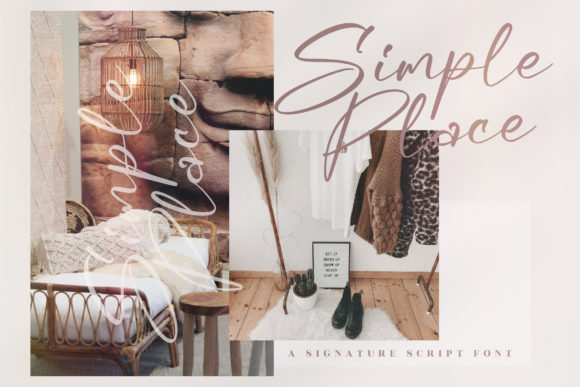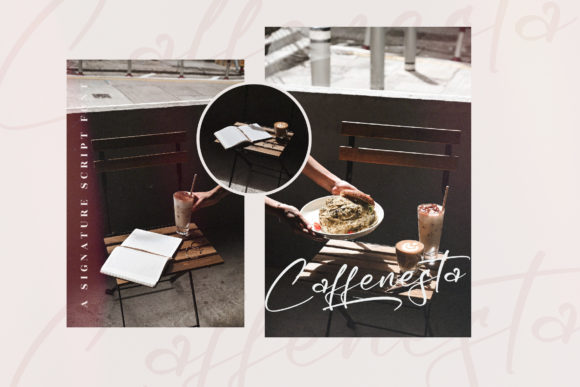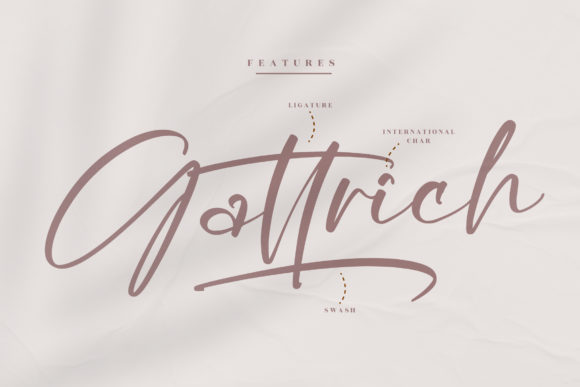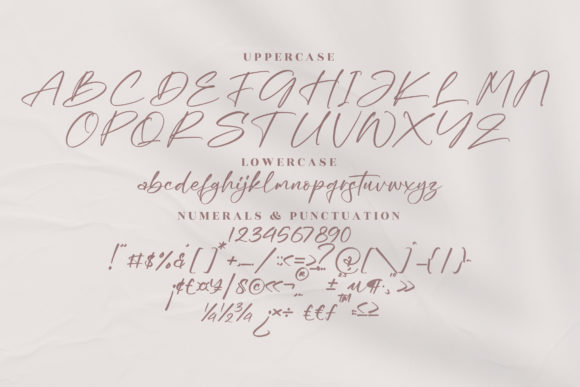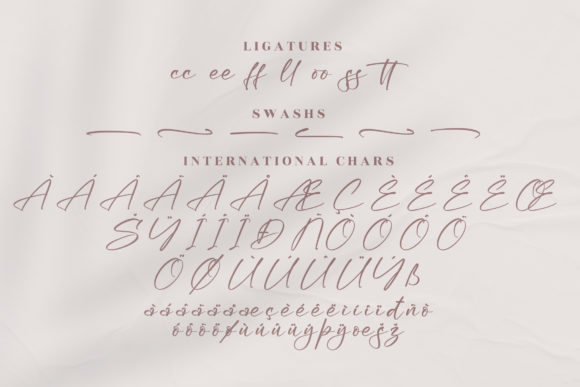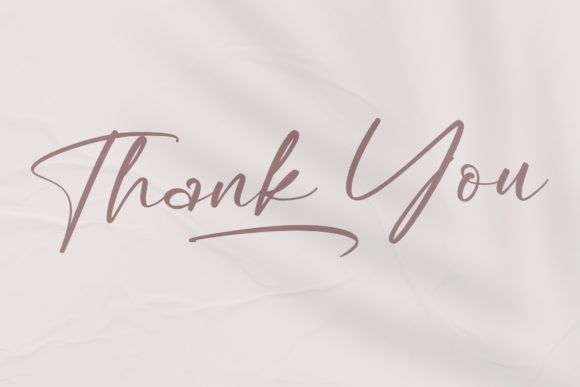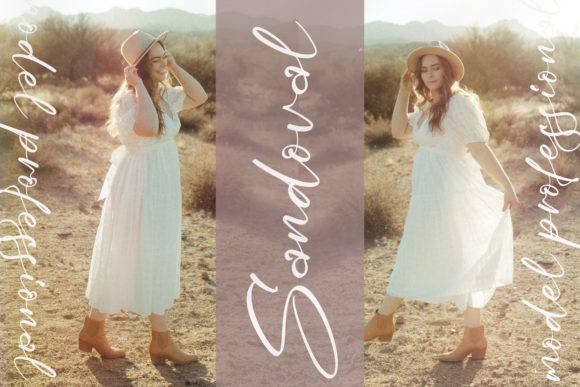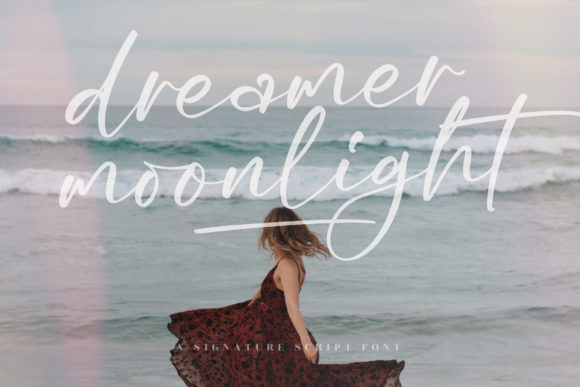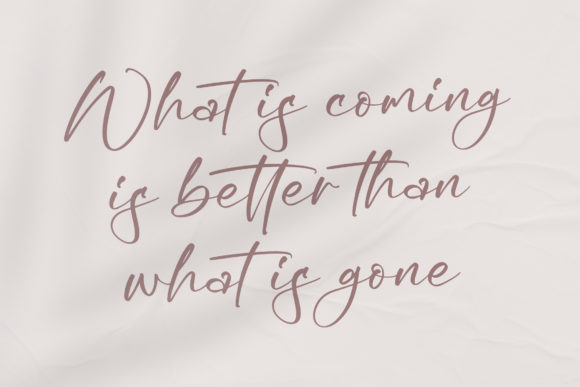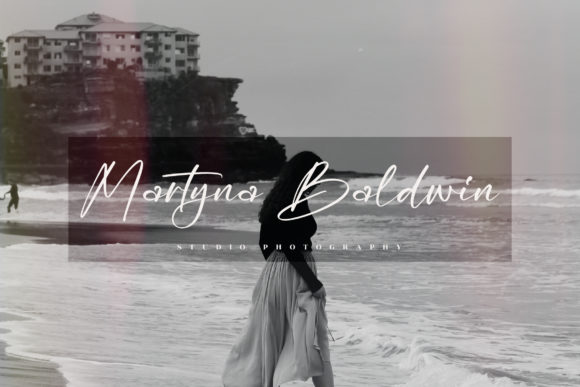
Herittage Font
About Herittage Font
“Herittage” is more than just a font; it’s a free-flowing cursive script that embodies the art of elegance and charm. With its gentle and graceful strokes, this font becomes a canvas for various design ideas. Its versatility shines through, adding a touch of joy and romance to every project it graces.
The font’s allure lies in its ability to effortlessly flow and curve, exuding an air of freedom and beauty. Each character is carefully crafted to create an aesthetic that not only captivates the eye but also infuses your designs with a sense of joyful romance.
As “Herittage” becomes a part of your creative endeavors, you’ll experience its transformative power. By incorporating this font into your projects, you’ll observe how it elevates and amplifies your ideas, infusing them with a gentle, romantic touch that resonates deeply.
In essence, “Herittage” transcends being a mere font. It’s a channel of free-flowing elegance and romantic charm, designed to enrich visuals with an intimate, joyful spirit. With its cursive and handwritten style, this font becomes an essential tool for designers seeking to create visuals that evoke emotions, establish connections, and create an enduring impact. With “Herittage,” your designs don’t just communicate; they radiate feelings of joy and romance that linger long after they’re seen.